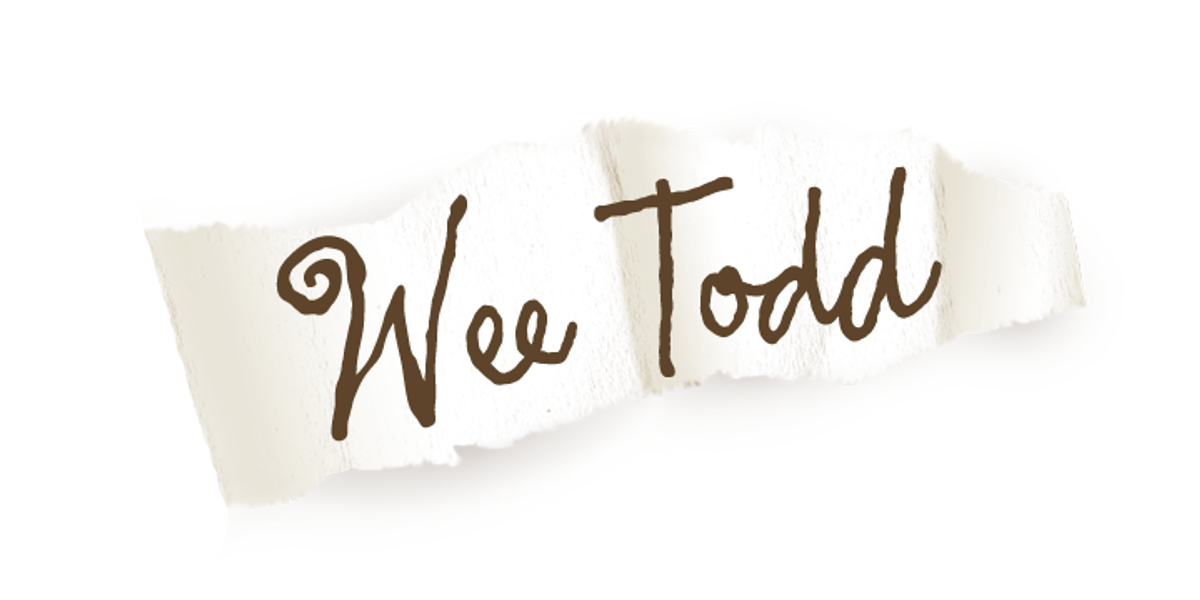
Wee Todd
Wee Todd is a script font designed to resemble the handwriting style of left-handed individuals. The font features connected characters and includes additional ligatures and characters that are substituted automatically in compatible applications, creating a natural and spontaneous handwritten appearance.